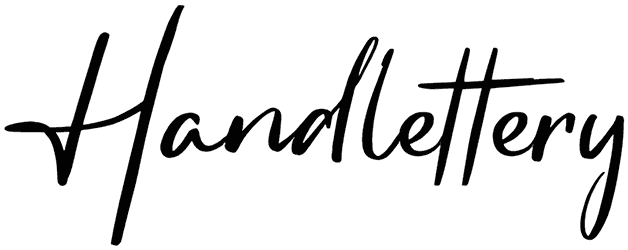
Handlettery Font
This connected, flowing postcard font is great for elegant designs and can be used in a wide range of print and digital media, from album covers and movie titles to invitation cards and messages.